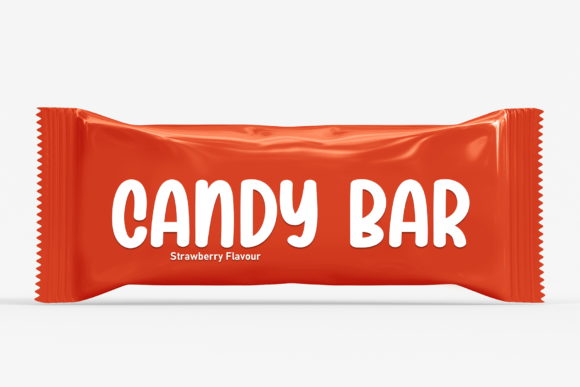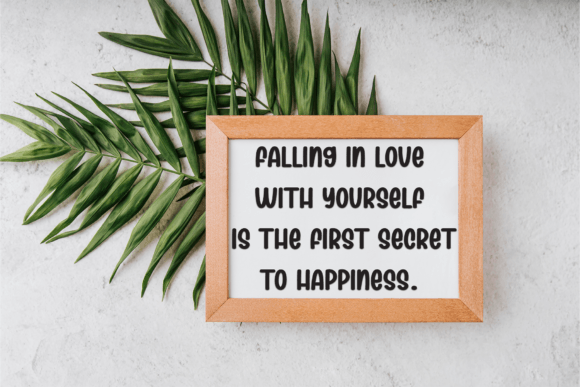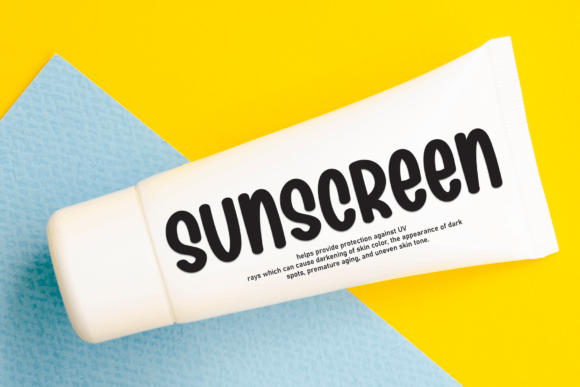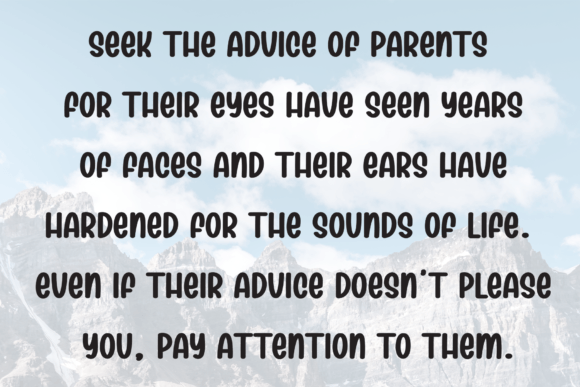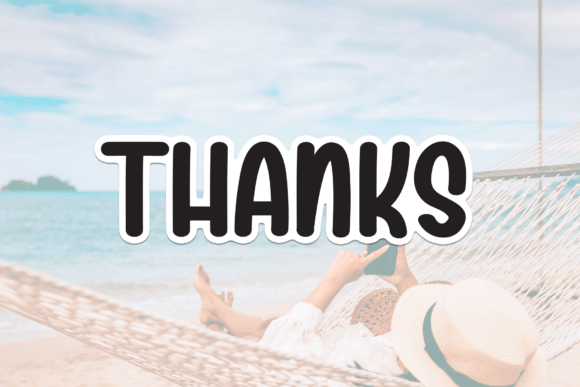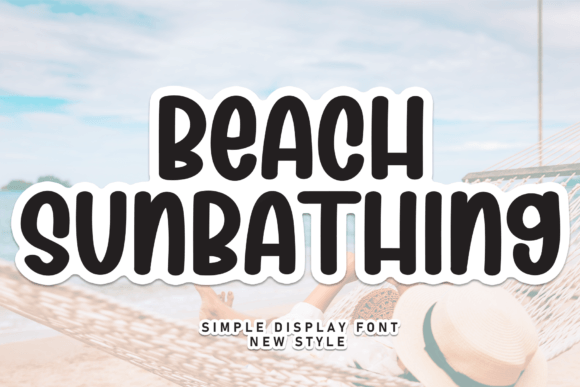
Introducing Beach Sunbathing Font: The Perfect Addition to Your Design Collection
Are you tired of using the same old fonts in your designs? Look no further! Beach Sunbathing Font is a sweet and friendly handwritten font that’s sure to add a touch of warmth and personality to any project. Its natural and unique style makes it incredibly fitting to a large pool of designs, and the only limit is your imagination!
The Characteristics of Beach Sunbathing Font
Beach Sunbathing Font is a handwritten font that’s designed to evoke the feeling of a relaxing day at the beach. Its sweet and friendly style is perfect for designs that require a personal touch, such as:
- Children’s books and educational materials
- Branding and packaging for lifestyle and wellness products
The font’s natural and unique style is achieved through its subtle imperfections and handwritten flair. Each letter is carefully crafted to create a sense of movement and fluidity, making it perfect for designs that require a touch of elegance and sophistication.
The Benefits of Using Beach Sunbathing Font
So why choose Beach Sunbathing Font for your next design project? Here are just a few benefits:
- Versatility: Beach Sunbathing Font is incredibly versatile, making it suitable for a wide range of designs and applications.
- Uniqueness: The font’s unique style ensures that your designs will stand out from the crowd and leave a lasting impression.
- Ease of use: Beach Sunbathing Font is easy to read and use, making it perfect for designs that require a clear and concise message.
- Emotional connection: The font’s sweet and friendly style creates an emotional connection with the viewer, making it perfect for designs that require a personal touch.
How to Use Beach Sunbathing Font in Your Designs
Using Beach Sunbathing Font in your designs is easy! Here are a few tips to get you started:
- Pair it with other fonts: Beach Sunbathing Font pairs perfectly with other fonts, such as sans-serif fonts for a modern look or script fonts for a more elegant feel.
- Experiment with colors: The font’s natural style looks great in a range of colors, from bright and bold to soft and pastel.
- Use it in combination with graphics: Beach Sunbathing Font looks great in combination with graphics and illustrations, such as beach balls, palm trees, or floral patterns.
Here are a few tips and tricks for designers and crafters who want to get the most out of Beach Sunbathing Font:
- Use it for titles and headings: Beach Sunbathing Font is perfect for titles and headings, where its unique style can really shine.
- Add a personal touch: Use Beach Sunbathing Font to add a personal touch to your designs, such as in a photo album or scrapbook.
- Experiment with different sizes: The font’s natural style looks great in a range of sizes, from small and delicate to large and bold.
Beach Sunbathing Font is a sweet and friendly handwritten font that’s perfect for designers and crafters who want to add a touch of warmth and personality to their designs. Its natural and unique style makes it incredibly versatile, and the only limit is your imagination! So why not give it a try and see what amazing designs you can create?